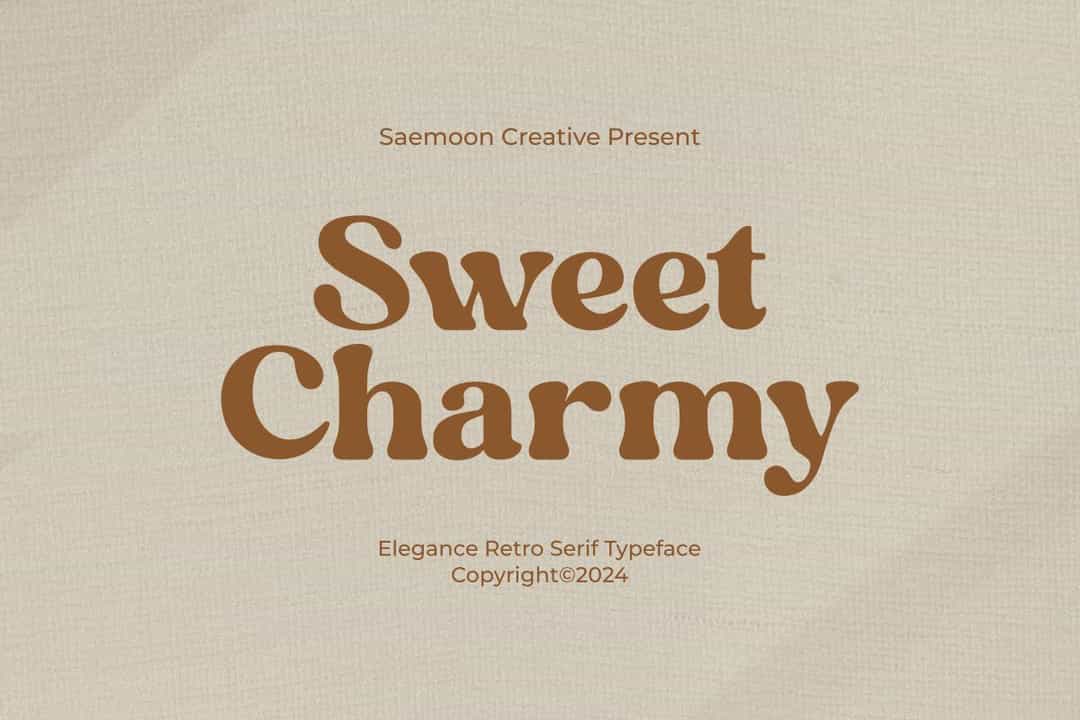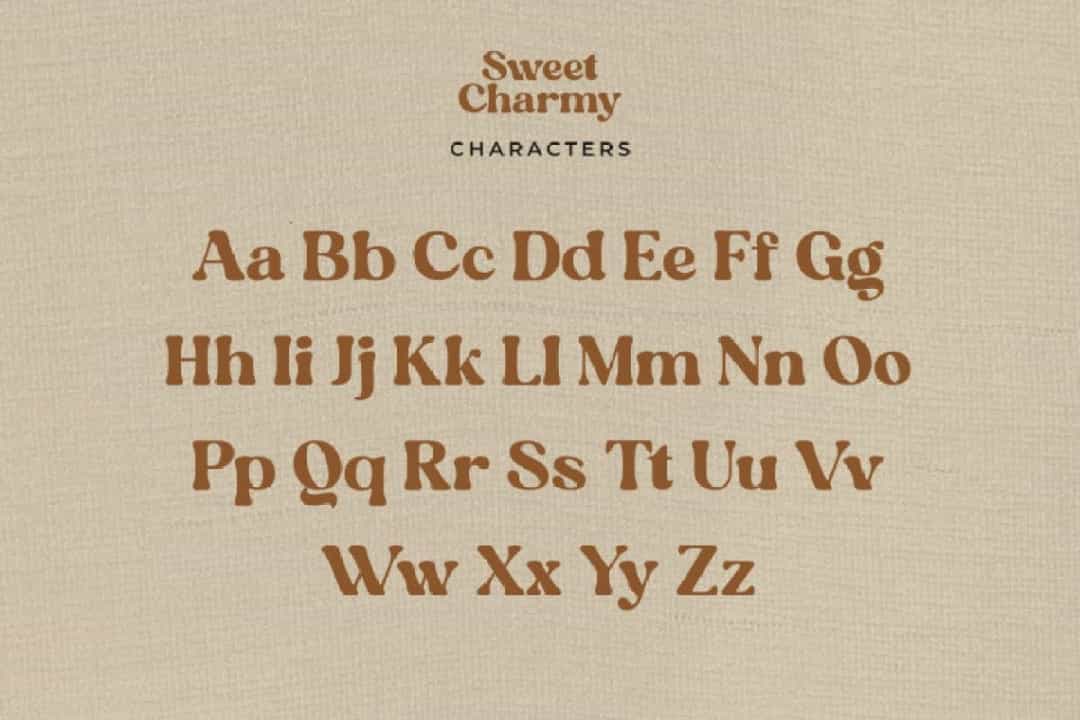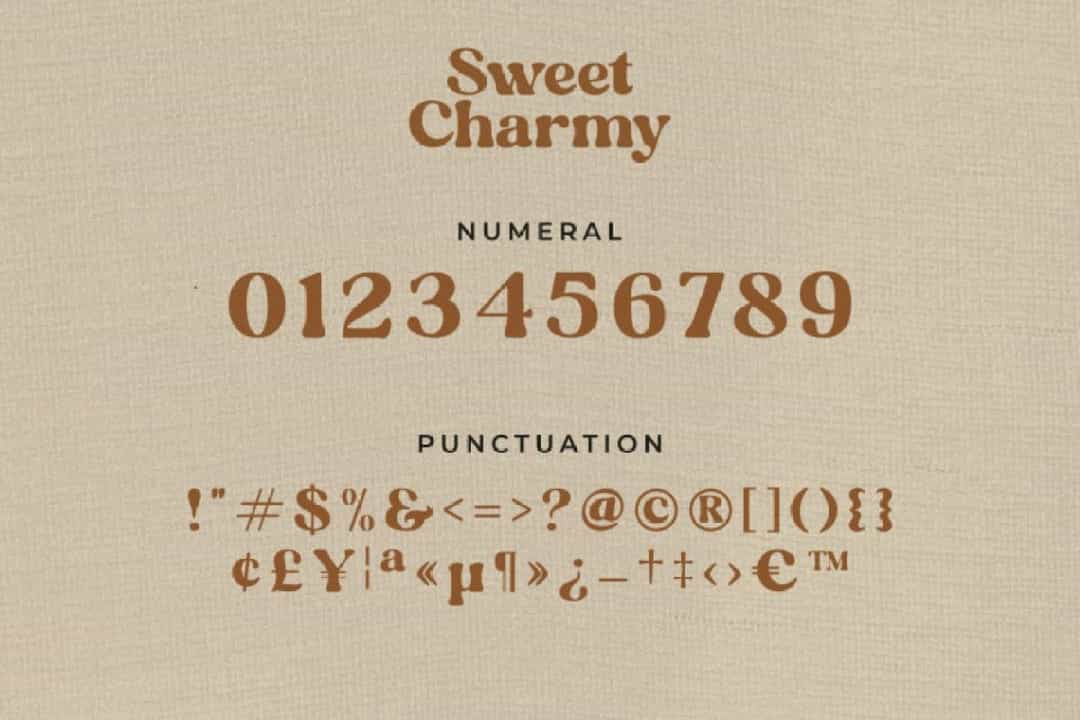
Being a primarily elegant Retro Serif typeface, Sweet Charmy is also a rather modern looking typeface. The details are fine and the lines are curved to blend in perfectly, creating a unique and sensational retro look that is at the same excellent and cosy. Ideal for a rich spectrum of design employs – from logos to branding to invitations to creative projects,